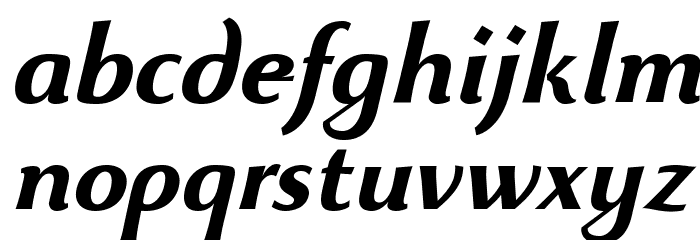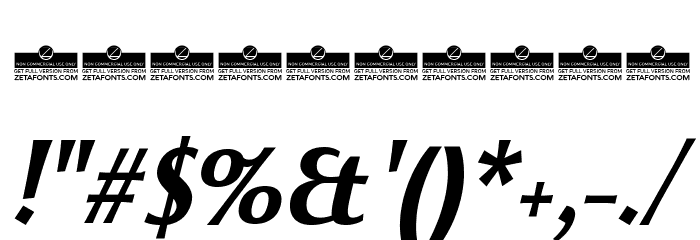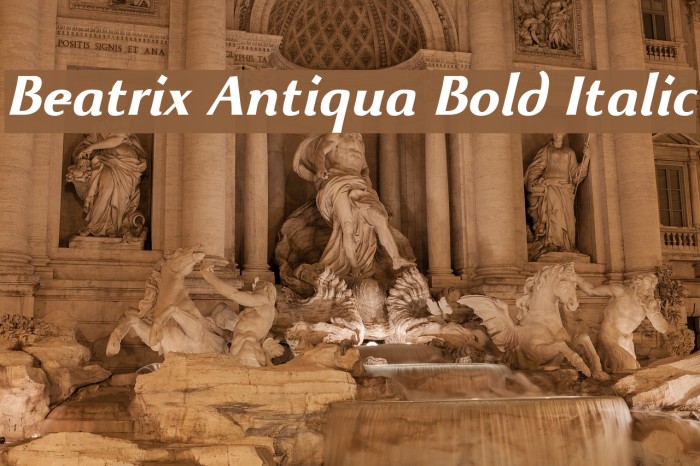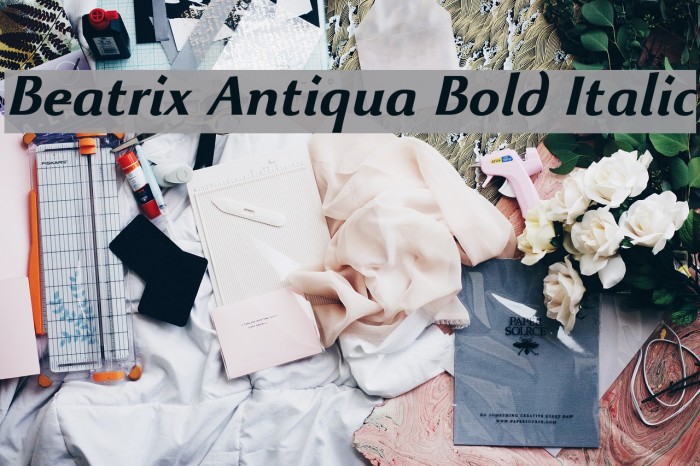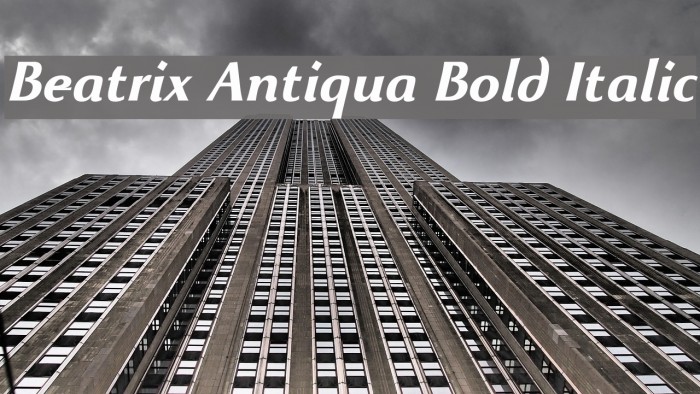
Beatrix Antiqua Bold Italic Font
This font exhibits a bold and italicized style, combining a sense of strength with elegance. The uppercase letters are slightly slanted, adding a dynamic feel, while the lowercase letters maintain a consistent flow. The strokes are thick, providing a strong presence, yet the italic angle softens the overall appearance, making it suitable for both formal and creative applications. The special characters are well-integrated, maintaining the font's cohesive look. This font is versatile, offering a classic yet modern aesthetic.
A bold, italicized font with a strong yet elegant style.
- Proposed Projects: Ideal for branding, headlines, and editorial design where a bold statement is desired.
- Overall Style: Classic
- Use Case: Headlines, Logos, Editorial Design